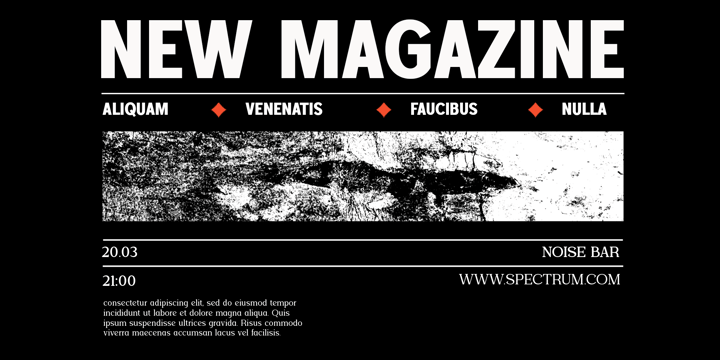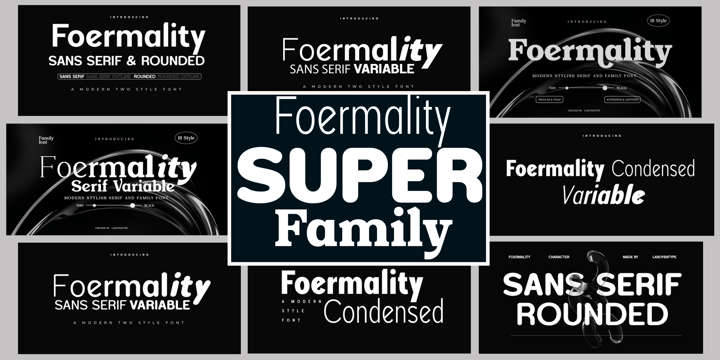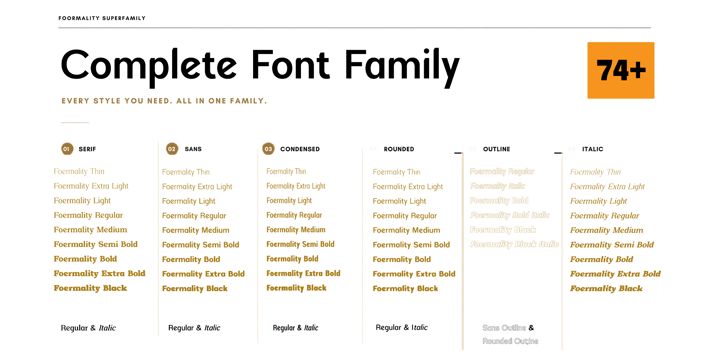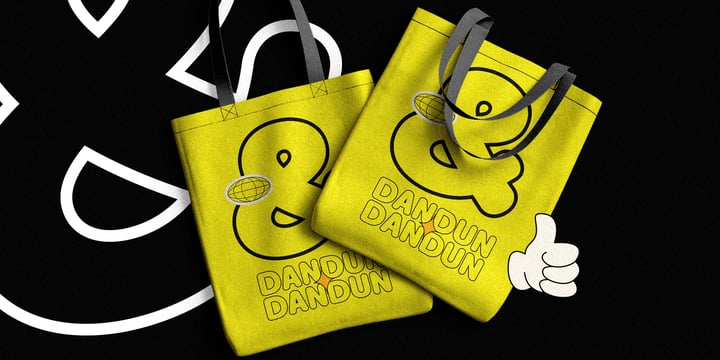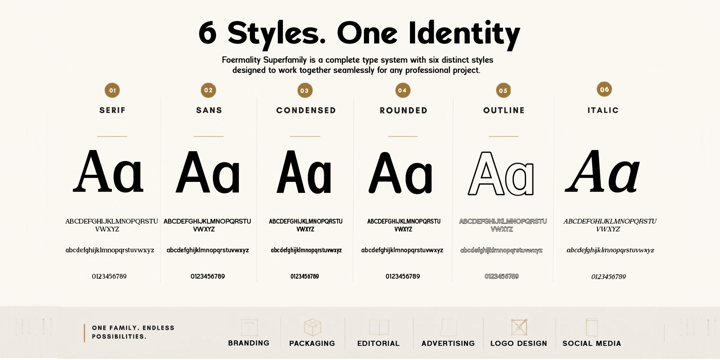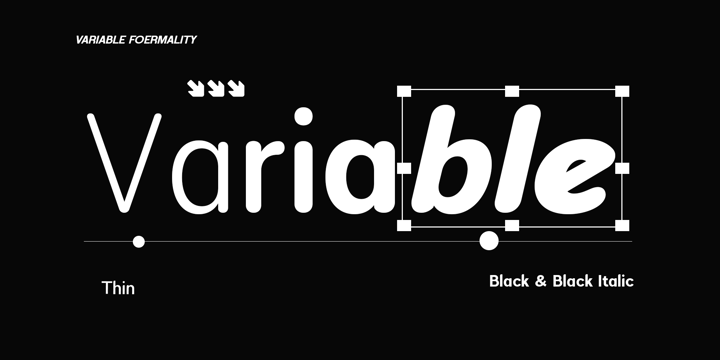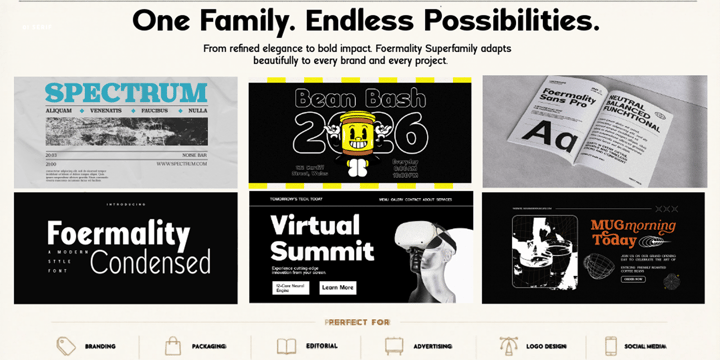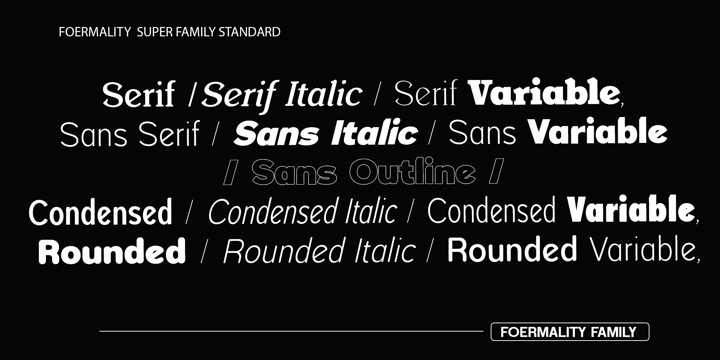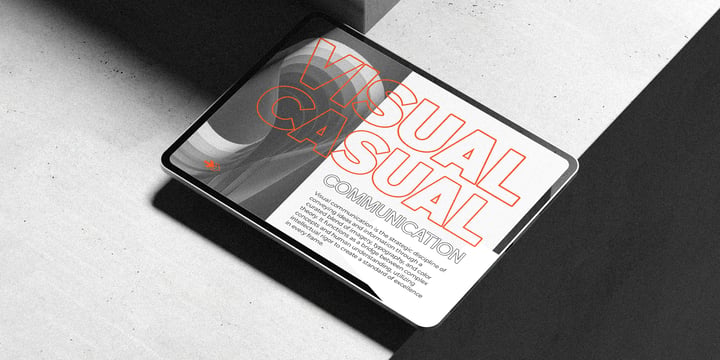
Foermality Superfamily
Foermality Typeface Superfamily
One Family. Endless Possibilities.
Foermality is a comprehensive modern typeface superfamily designed to provide designers with a complete and flexible typographic system. Built on a consistent design philosophy, Foermality combines elegance, clarity, versatility, and expressive character into one unified family.
With 84 fonts across 6 distinctive styles, Foermality allows you to create cohesive visual identities while offering enough variety for virtually any creative project.
Included Styles
Foermality Serif
Elegant and timeless, perfect for editorial design, luxury branding, publishing, and sophisticated visual identities.
Foermality Sans
Clean, modern, and highly versatile for branding, corporate design, user interfaces, and contemporary communication.
Foermality Condensed
Compact and impactful, ideal for headlines, posters, sports graphics, packaging, and space-efficient layouts.
Foermality Rounded
Friendly and approachable with softer forms that work beautifully for lifestyle brands, packaging, children's products, and modern marketing.
Foermality Outline
Bold and creative display styles designed to attract attention in posters, entertainment graphics, advertising campaigns, and expressive typography.
Foermality Italic
Dynamic and expressive companions that bring movement, emphasis, and personality to your designs.
Why Choose Foermality?
84 Fonts Included
6 Distinctive Style Categories
Consistent Design System
Professional Branding Solution
Display and Editorial Ready
Modern Geometric Construction
Extensive Weight Options
Regular and Italic Styles
Multilingual Support
Suitable for Print and Digital Media
Perfect For
Branding, Visual Identity, Editorial Design, Corporate Communication, Packaging Design, Advertising, Posters, Social Media Graphics, Sports Branding, Fashion Campaigns, Website Design, Mobile Applications, Publishing, Creative Agencies, and Modern Typography Projects.
Foermality is more than a font family—it's a complete type system designed to help you build stronger, more consistent, and more expressive visual communication.